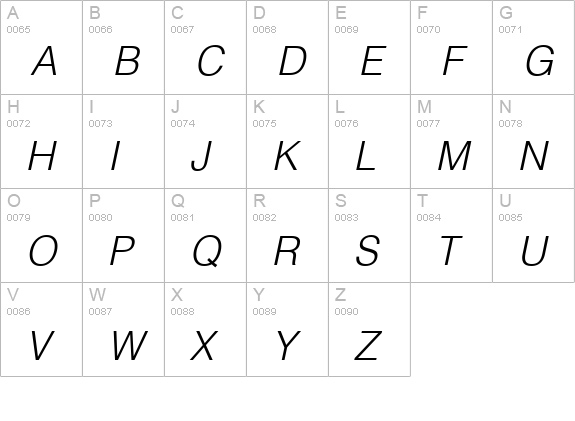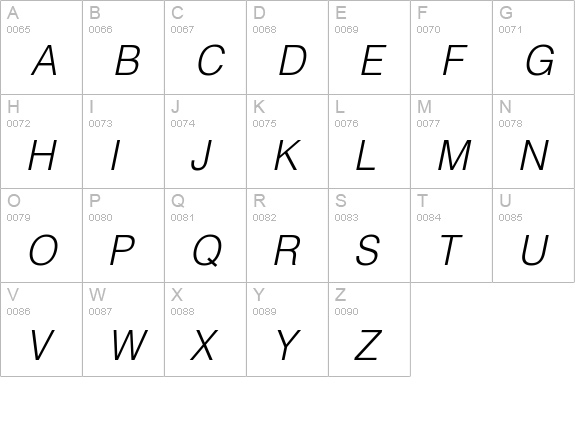
Context Light SSi Light Italic Font Details
Context Light SSi Light Italic is a refined, elegant, italic variant in the Context typeface family \xE2\x80\x94 well suited to elegant body text, refined sub-headings, and luxury branding.
Introducing Context Light SSi Light Italic font - a sleek and elegant typeface that exudes sophistication and modernity. The delicate curves and slanted design of this font add a touch of style to any project, making it perfect for branding, editorial design, and more. The light weight of the font gives it a delicate and airy feel, while the italic styling adds a sense of movement and dynamism. The best part? Context Light SSi Light Italic font is available for free download at FontsMarket.com. Now you can easily access this beautiful font and elevate your designs without breaking the bank. Whether you're a professional designer looking for a versatile typeface or a hobbyist exploring creative projects, this font is sure to enhance your work with its timeless appeal and effortless charm. Don't miss out on the opportunity to add Context Light SSi Light Italic font to your font collection - download it for free today and start creating stunning designs that stand out from the crowd.